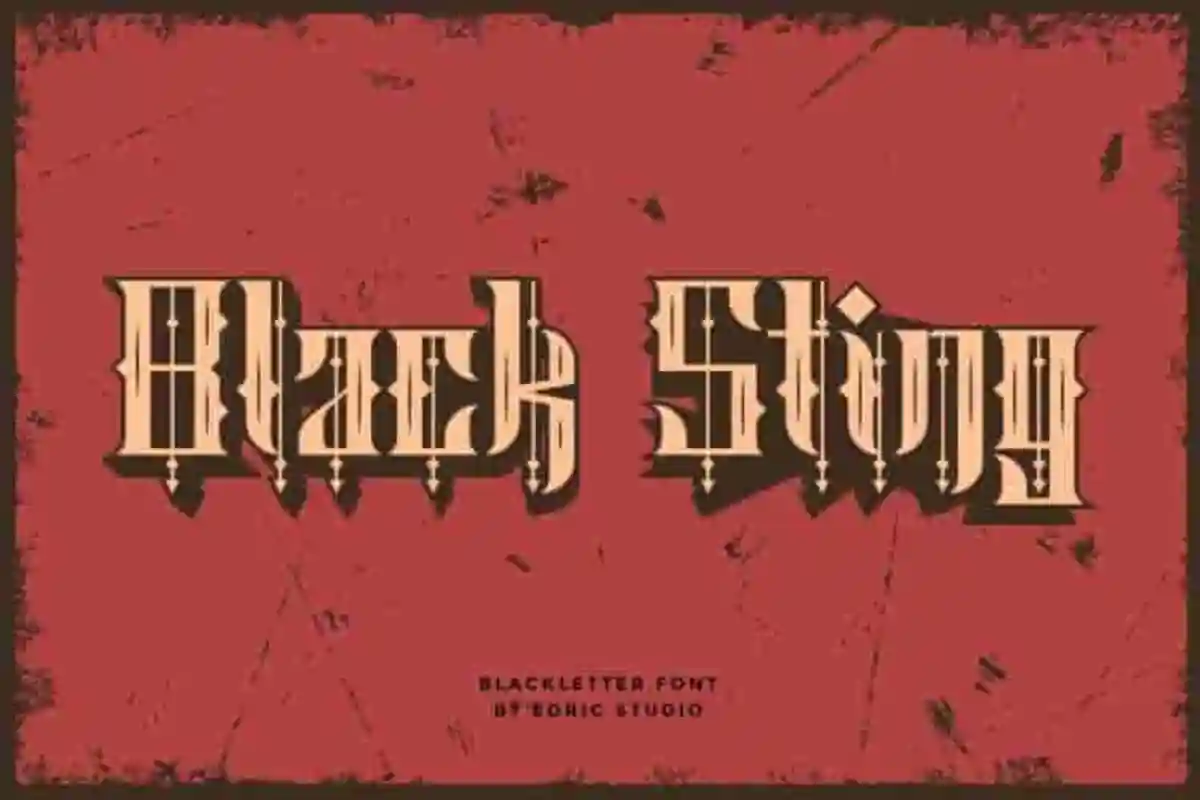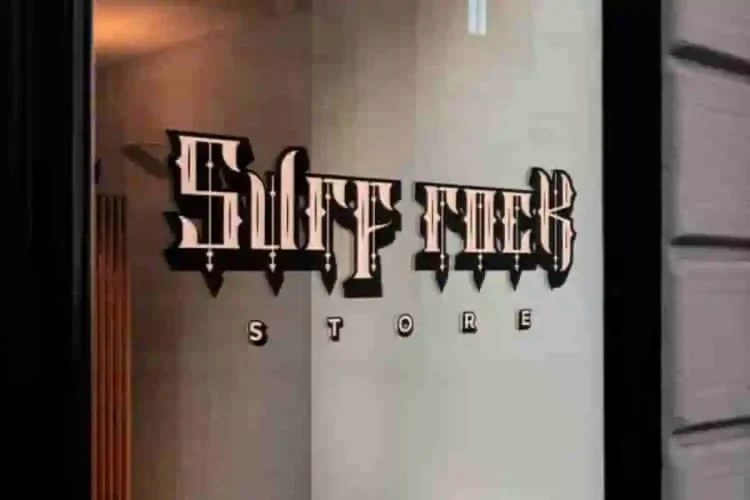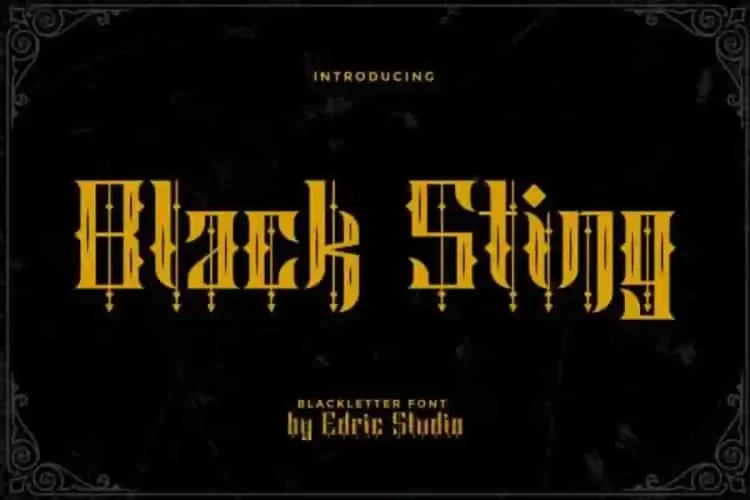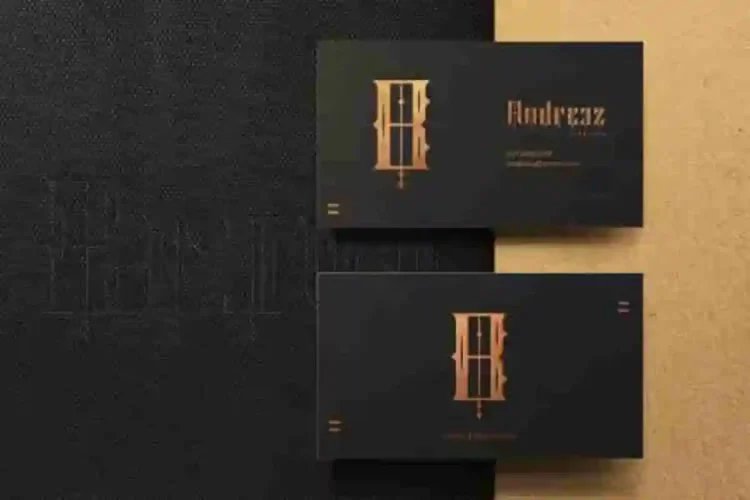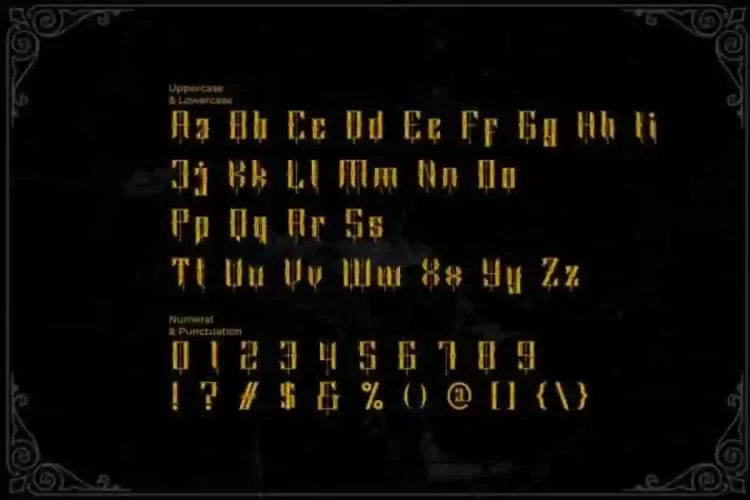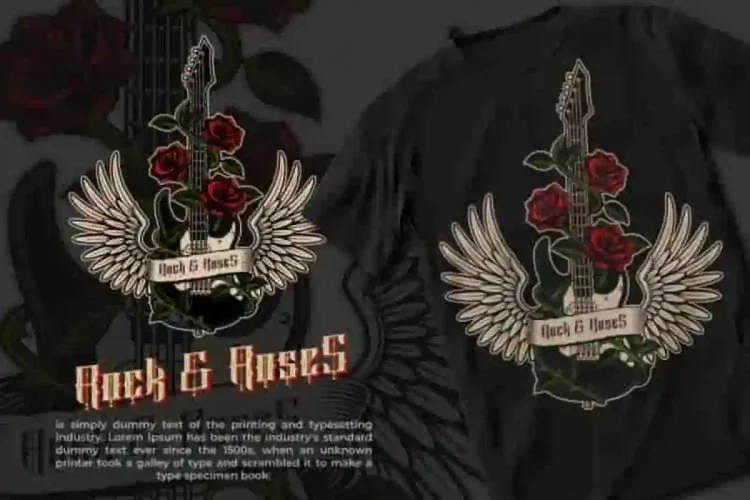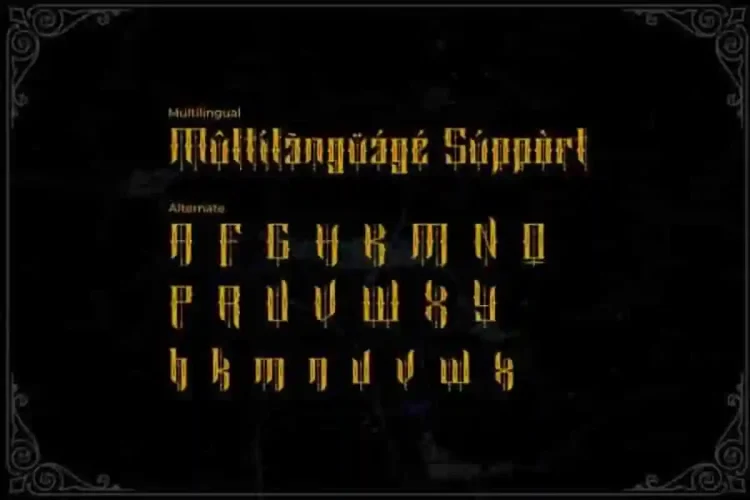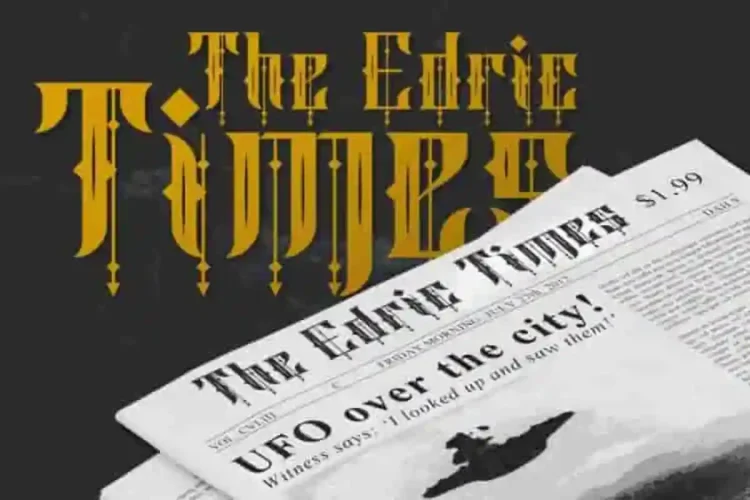
Black Sting Blackletter Font
Black Sting Blackletter Font, a blackletter display typeface inspired by the dramatic beauty of Gothic style. It has stunning, mysterious, horror, classic and vintage style. Black Sting Font  will be perfect for branding, logo, photography and headlines etc. With its fresh, elegant, natural, and artistic glyphs.